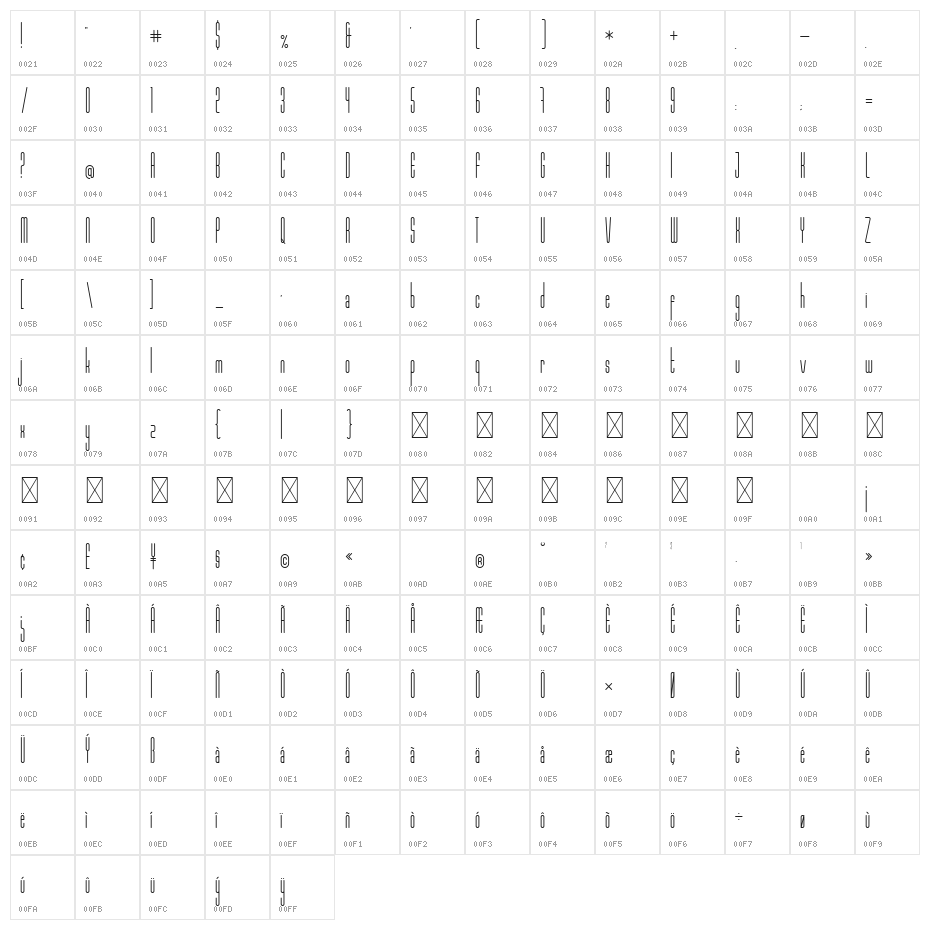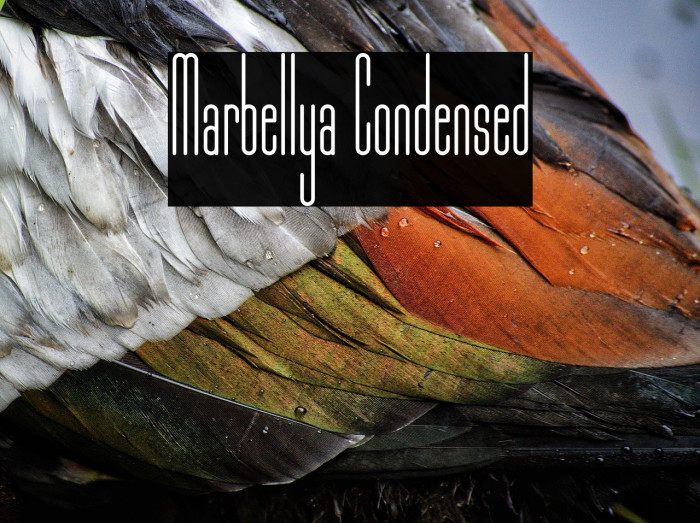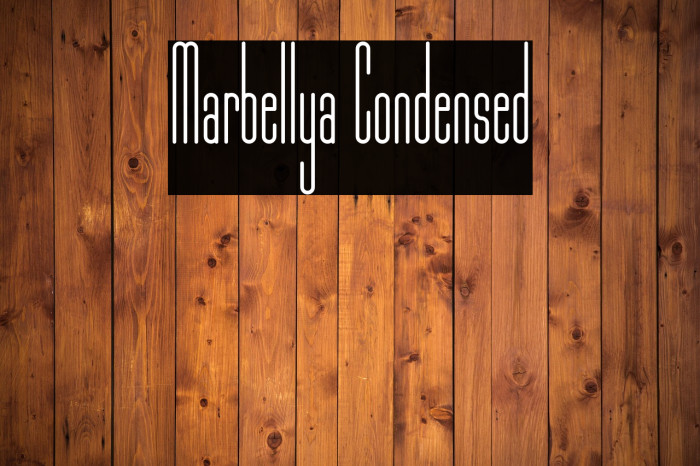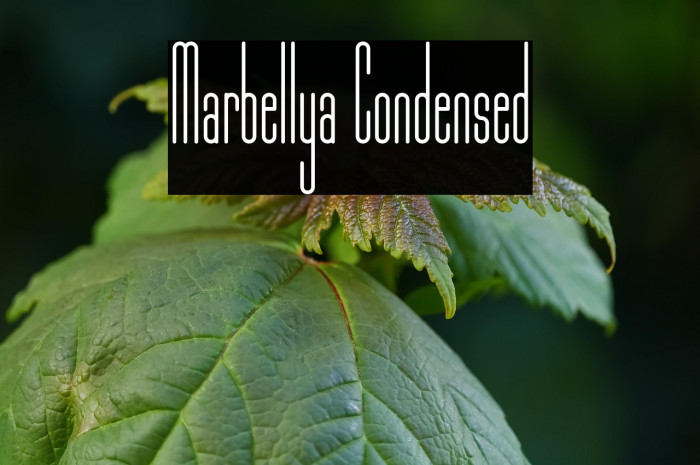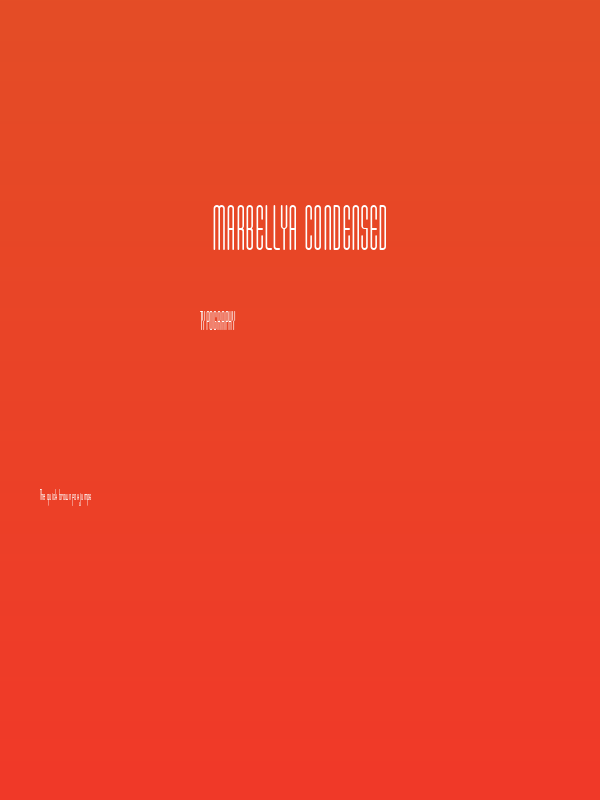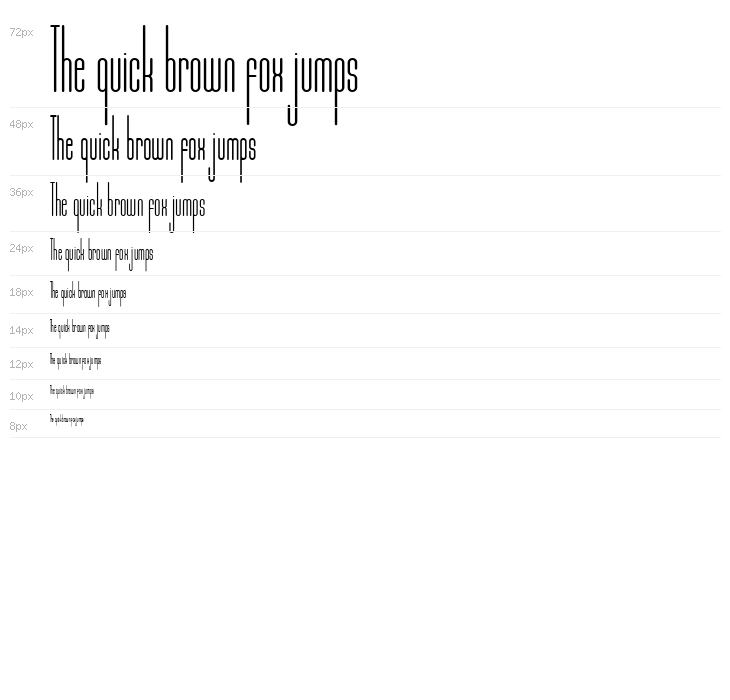
Marbellya Condensed Font
Marbellya Condensed Description
This font features a tall, narrow design with a distinctly modern and elegant appearance. The characters are elongated, giving a sense of height and sophistication. The vertical strokes are consistent in width, creating a uniform look across all letters. The font maintains a clean and minimalist aesthetic, with minimal embellishments, making it suitable for contemporary design projects. Its condensed form allows for efficient use of space, making it ideal for headlines or titles where space is limited. The numerals and special characters are designed to match the overall style, ensuring a cohesive look.
| Proposed Projects | Ideal for fashion magazines, luxury branding, modern posters, and elegant invitations. |